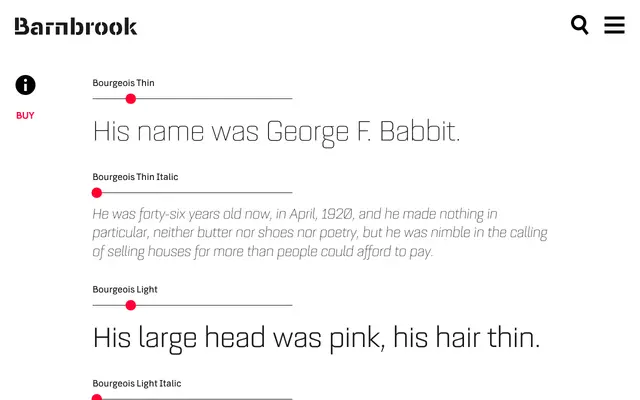
Bourgeois
A squarish geometric sans with 24 styles, drawing on the mid-century modernist tradition of Renner and Novarese while incorporating stylistic alternates rooted in Italian Futurist letterforms.
Built on the squarish geometry of mid-century modernism, Bourgeois takes cues from Paul Renner and Aldo Novarese while adding a contemporary warmth that softens its technological sheen. The family spans 24 styles, making it one of Barnbrook's most extensive releases, and includes a set of stylistic alternates derived from early Italian Futurist letterforms for a more radical register. Best suited to branding and identity work where geometric precision needs a degree of character.
Described explicitly as a squarish geometric font drawing on mid-century modernism and the lineage of Renner and Novarese; the squarish geometry places it firmly in the geometric sans subcategory.